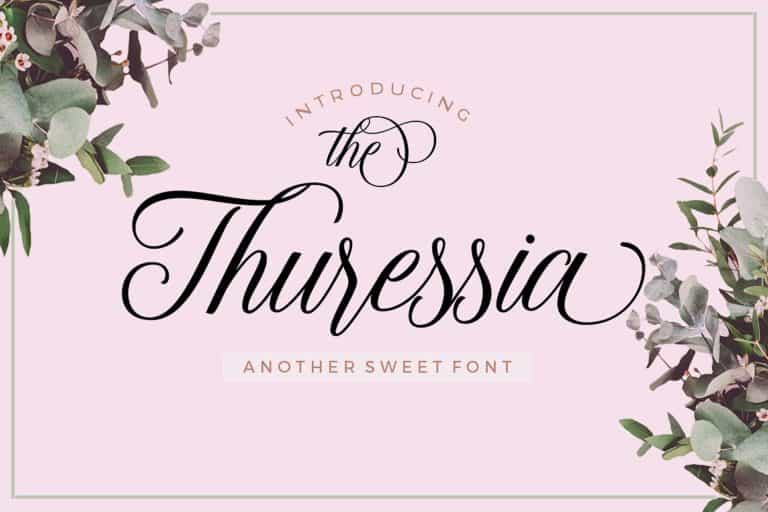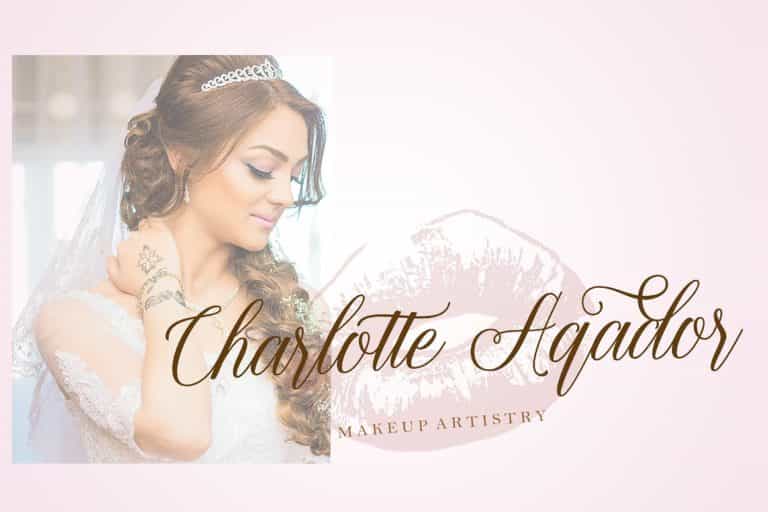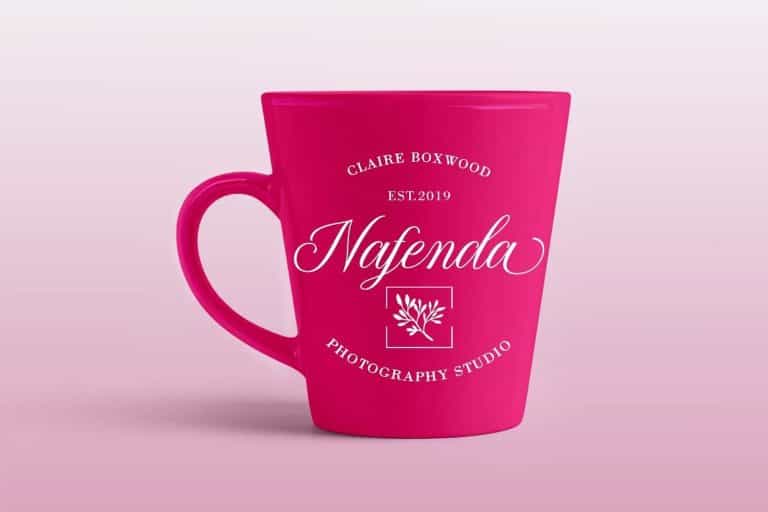
Thuressia – a fresh new handmade calligraphy font. This font is designed to complement your design needs on making amazing works. Thuressia is a modern calligraphy style design, including Regular. This font is casual and pretty with swashes. Can used for various purposes. such as logo, product packaging, wedding invitations, branding, headlines, signage, labels, signature, book covers, posters, quotes and more.